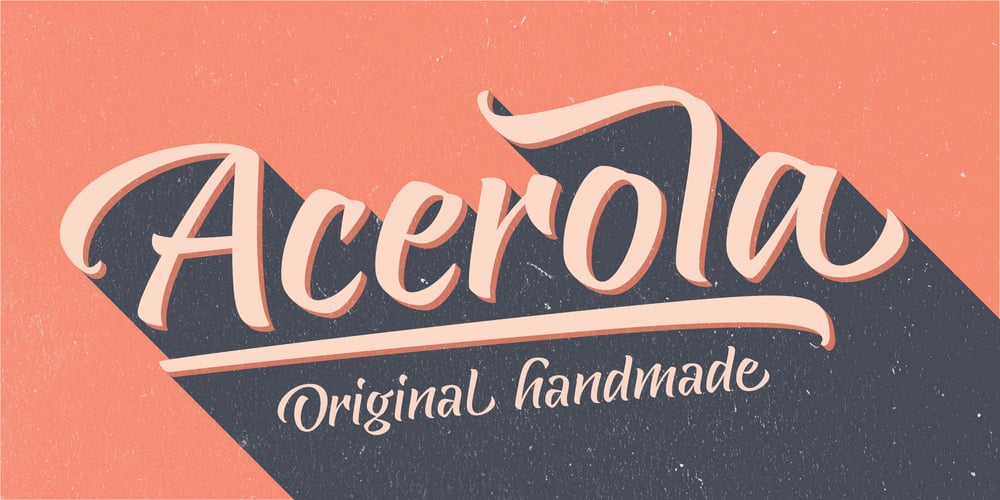
Acerola Font Family was designed by Thiago Bellotti and published by Gestu. Acerola contains 1 styles and family package options. Acerola is a contemporary script font based on calligraphy with the pointed brush. The letterforms have a touch of chancery with a fresh look, full of details and offering great readability. It contains a various OpenType features and supports most Latin-based languages. Over 1200 glyphs make up this display font that can be used for all manner of applications. Acerola includes alternate characters, swashed capitals, terminal forms, ligatures, stylistic sets and small caps. Acerola stands out in any typographic composition and certainly will make your design looks like unique and handmade.